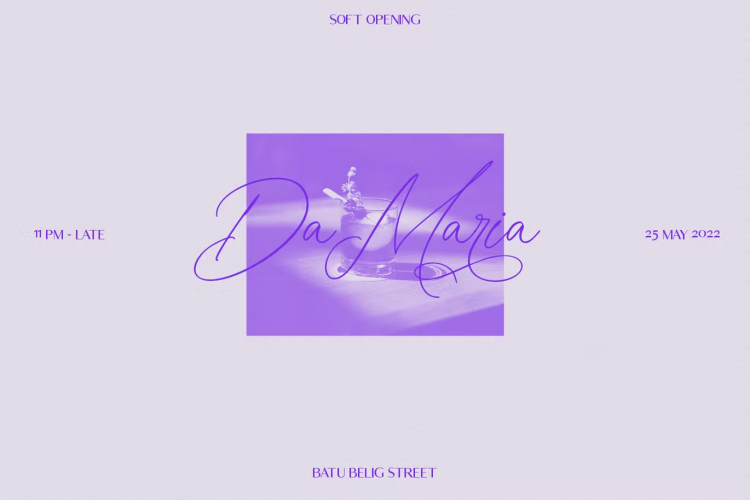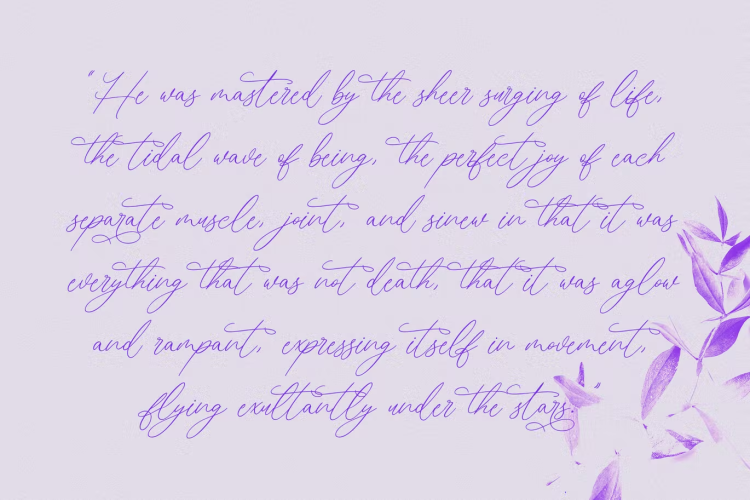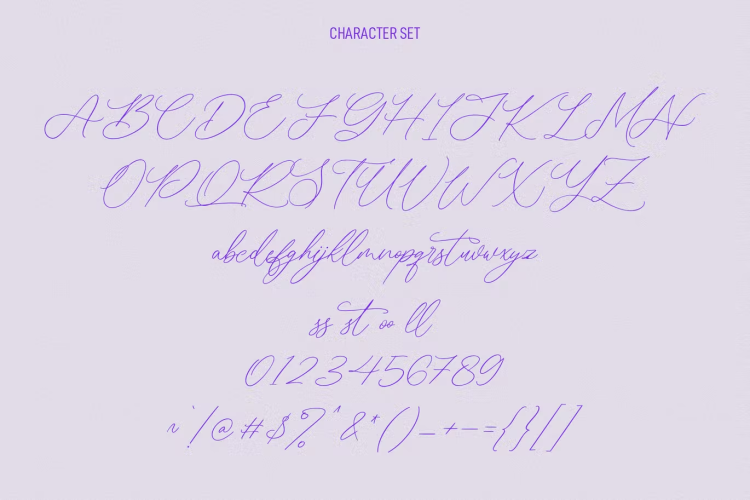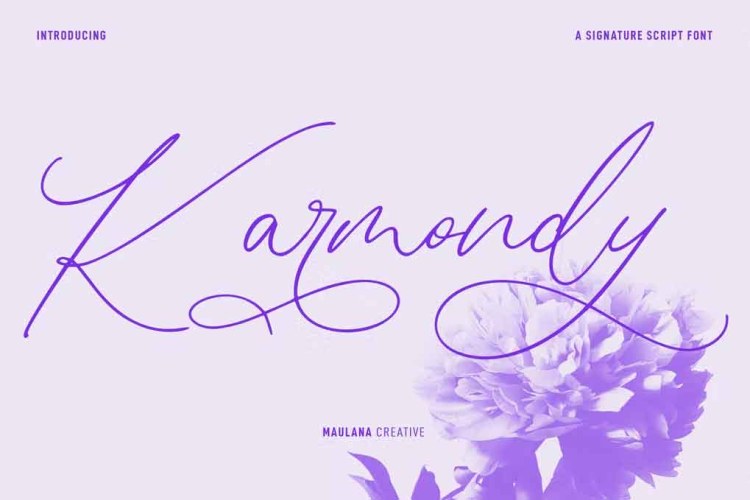
Karmondy Signature Script Font
Karmondy is a beauty casual signature script font. With light contrast stroke, fun character with a bit of ligatures and stylistic alternates. To give you an extra creat…
Karmondy is a beauty casual signature script font. With light contrast stroke, fun character with a bit of ligatures and stylistic alternates. To give you an extra creative work. Karmondy font support multilingual more than 100+ language. This font is good for logo design, Social media, Movie Titles, Books Titles, a short text even a long text letter and good for your secondary text font with sans or serif. Make a stunning work with Karmondy font.
Where Karmondy Signature Script Font works best
A short phrase in Karmondy Signature Script Font carries warmth that a typeset sans cannot fake; keep the rest of the card plain.
Chalkboard-style headings in Karmondy Signature Script Font make a menu feel hand-made. Keep the dish descriptions in a simple face so prices stay readable.
One line of Karmondy Signature Script Font over a photo is enough; the script carries the tone and the caption does the work.
What kind of work does Karmondy Signature Script Font suit?
It sits in the Script And Handwritten group and reads as branding, creative, readable, script. That makes it a candidate wherever those qualities help: headings, packaging, social graphics and brand work. Set it at the size you plan to use before deciding.